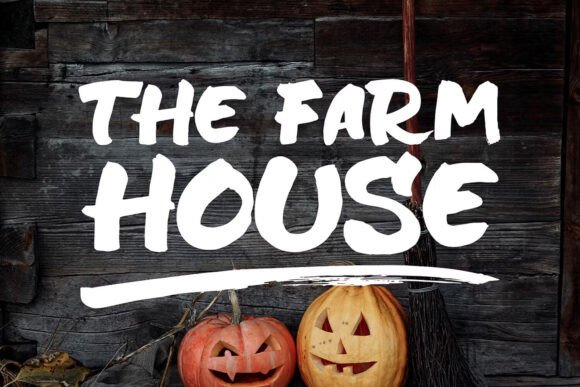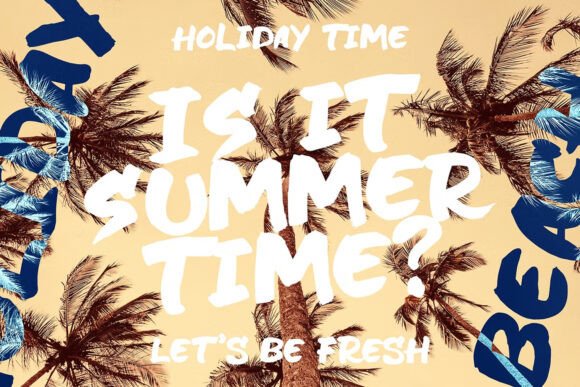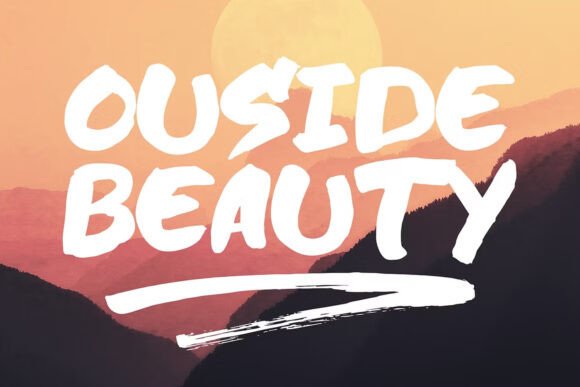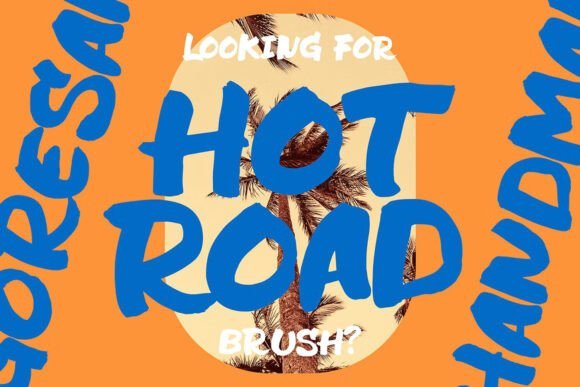
Introduction to Hot Road Brush Font
Imbued with boldness and touched by cheerfulness – present to you, Hot Road.
This hand-brushed font indeed is a mood enhancer, breathing life into your work with its realistic flair A true reflection of organic creativity, Hot Road’s texture mirrors the raw energy of a hand-brushed stroke.